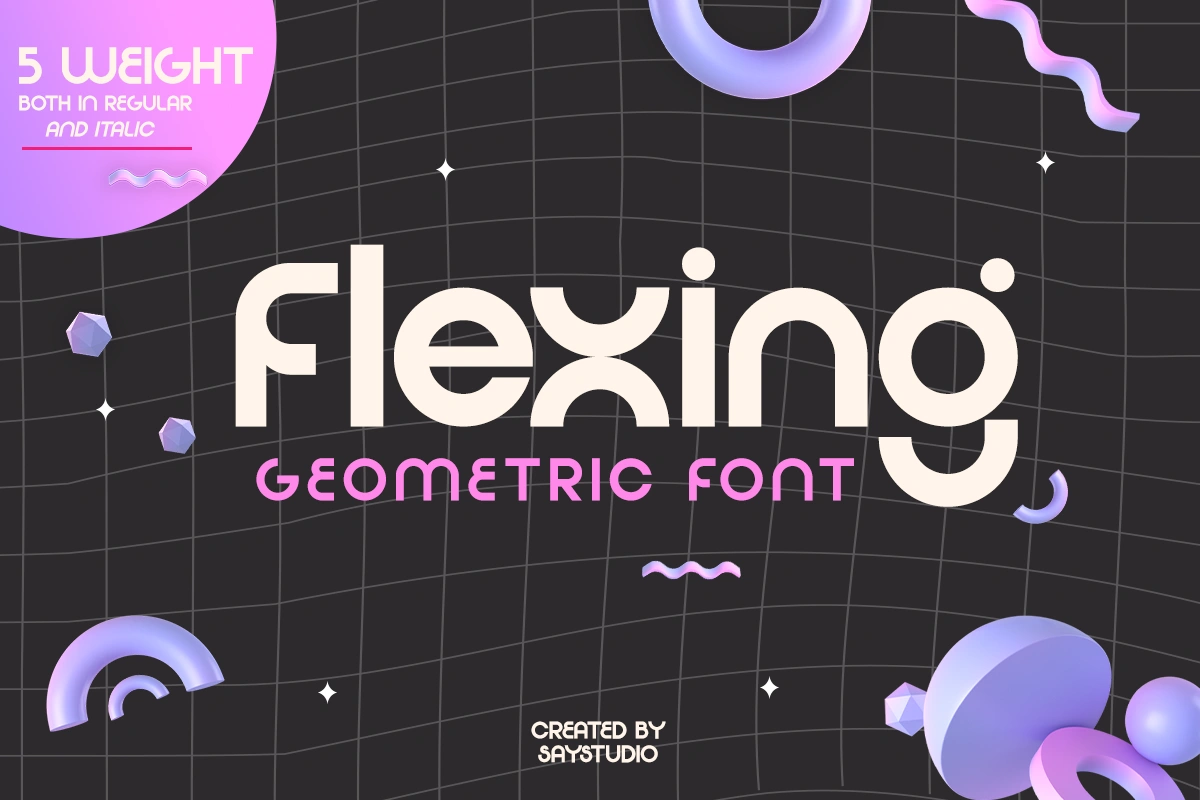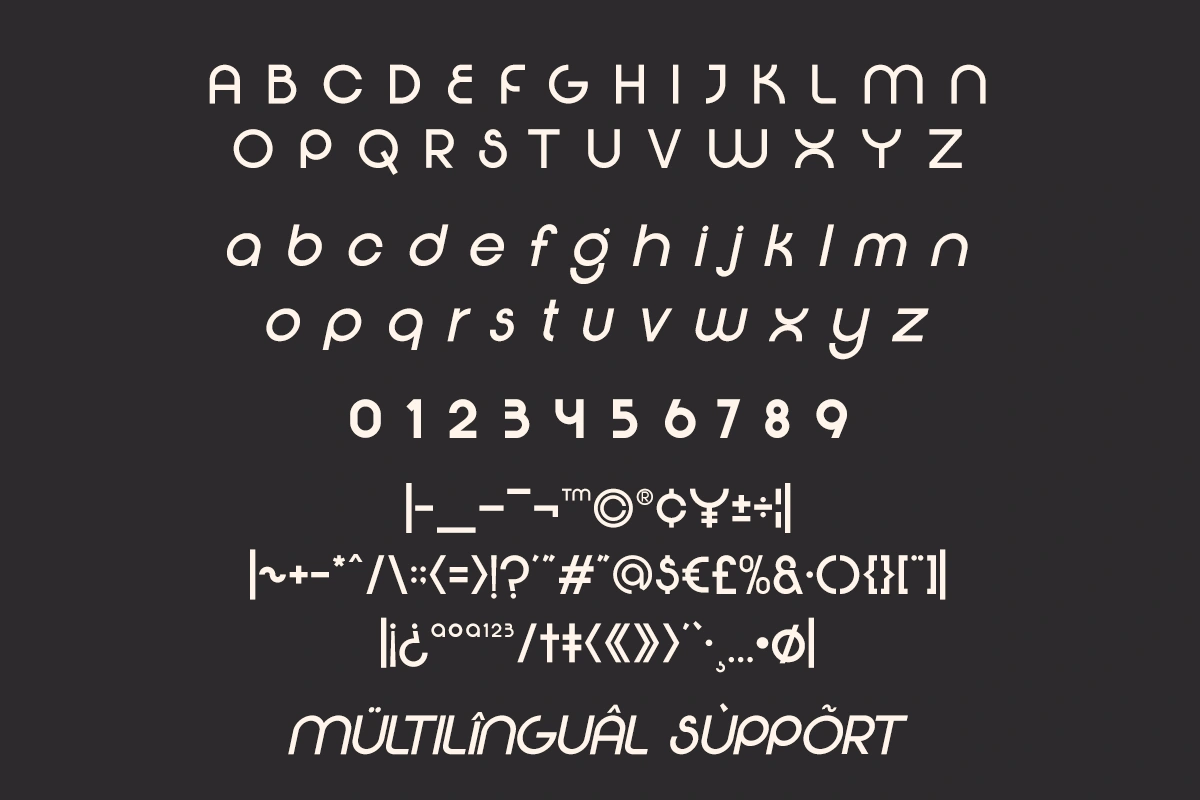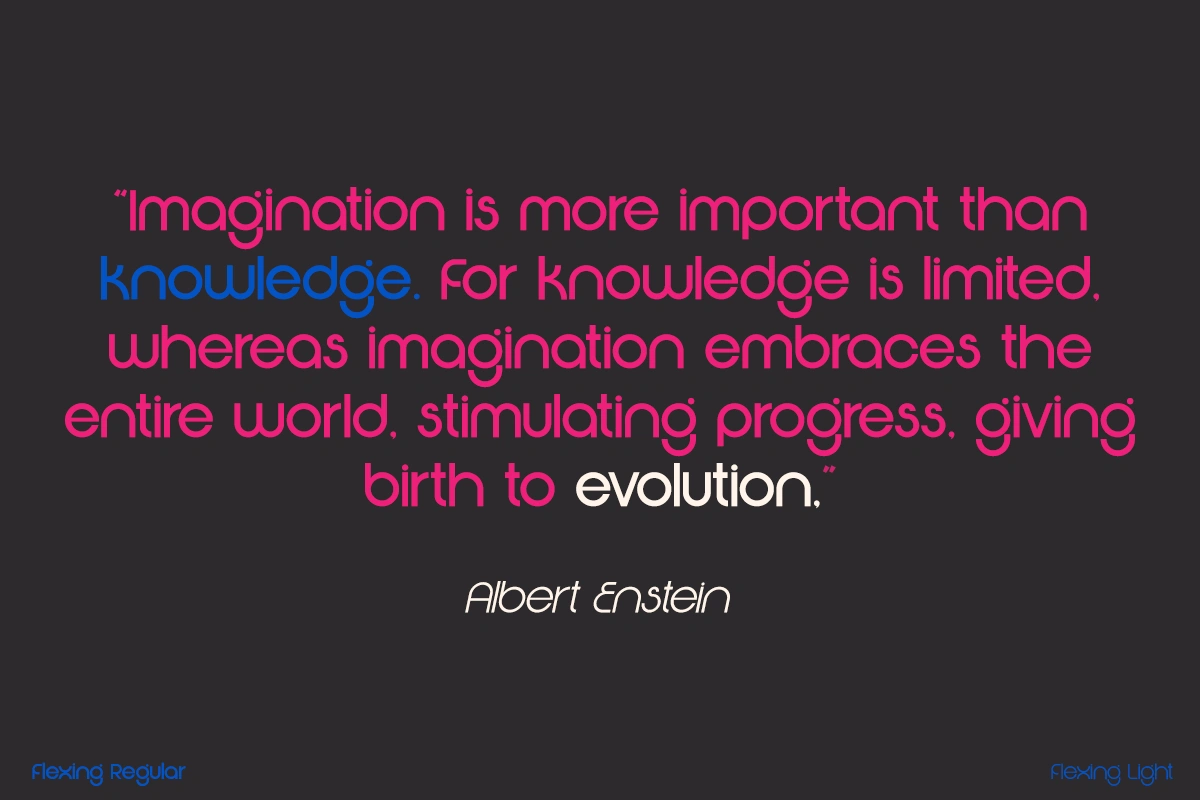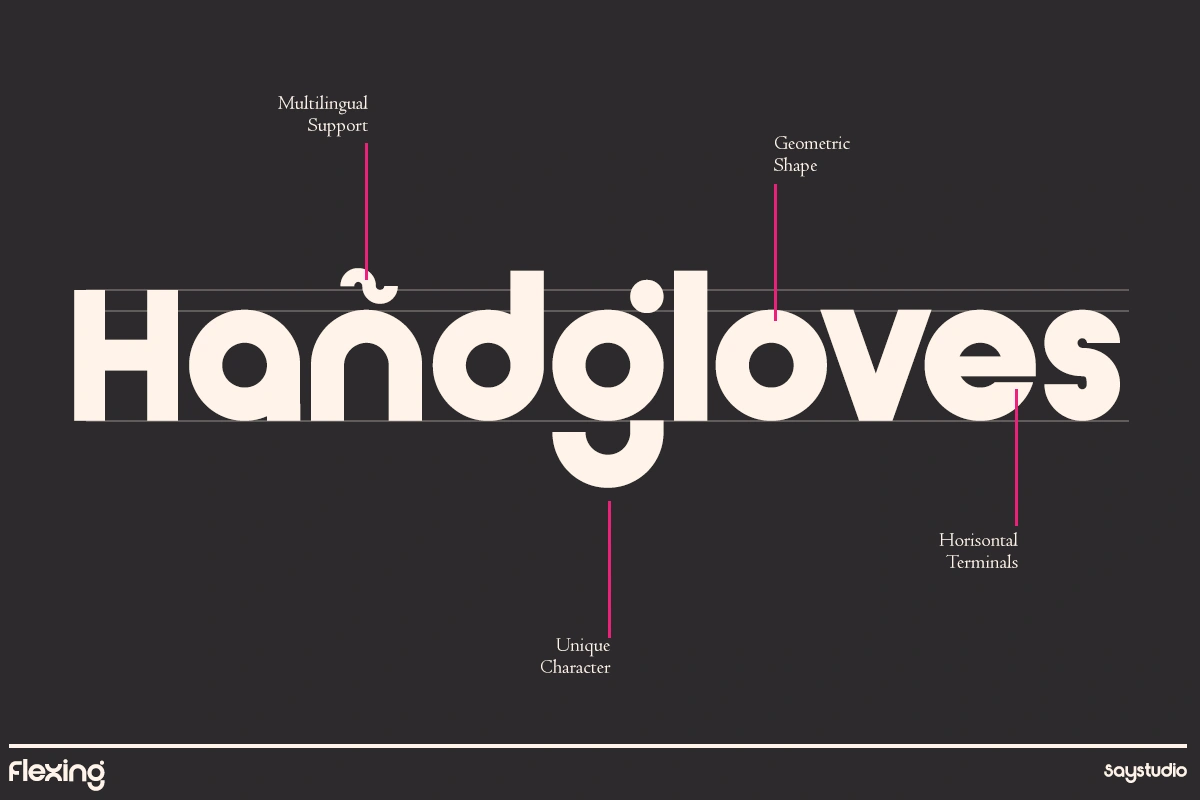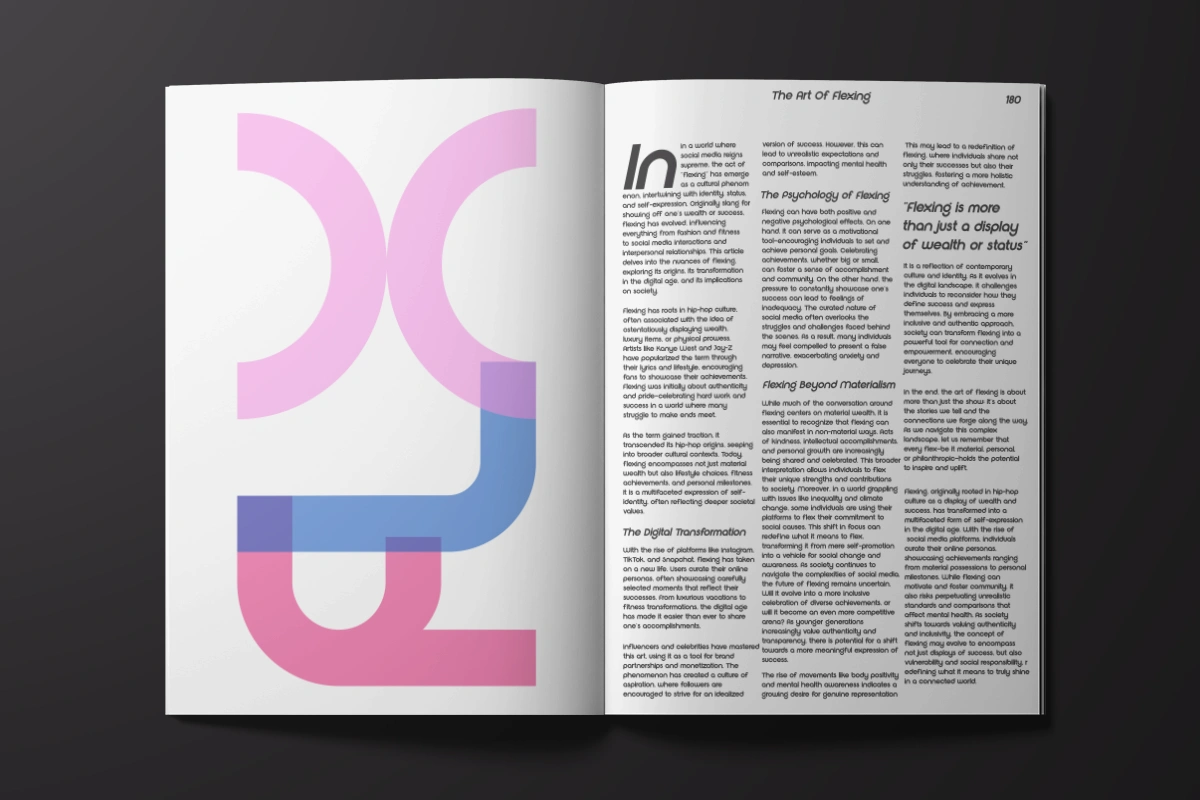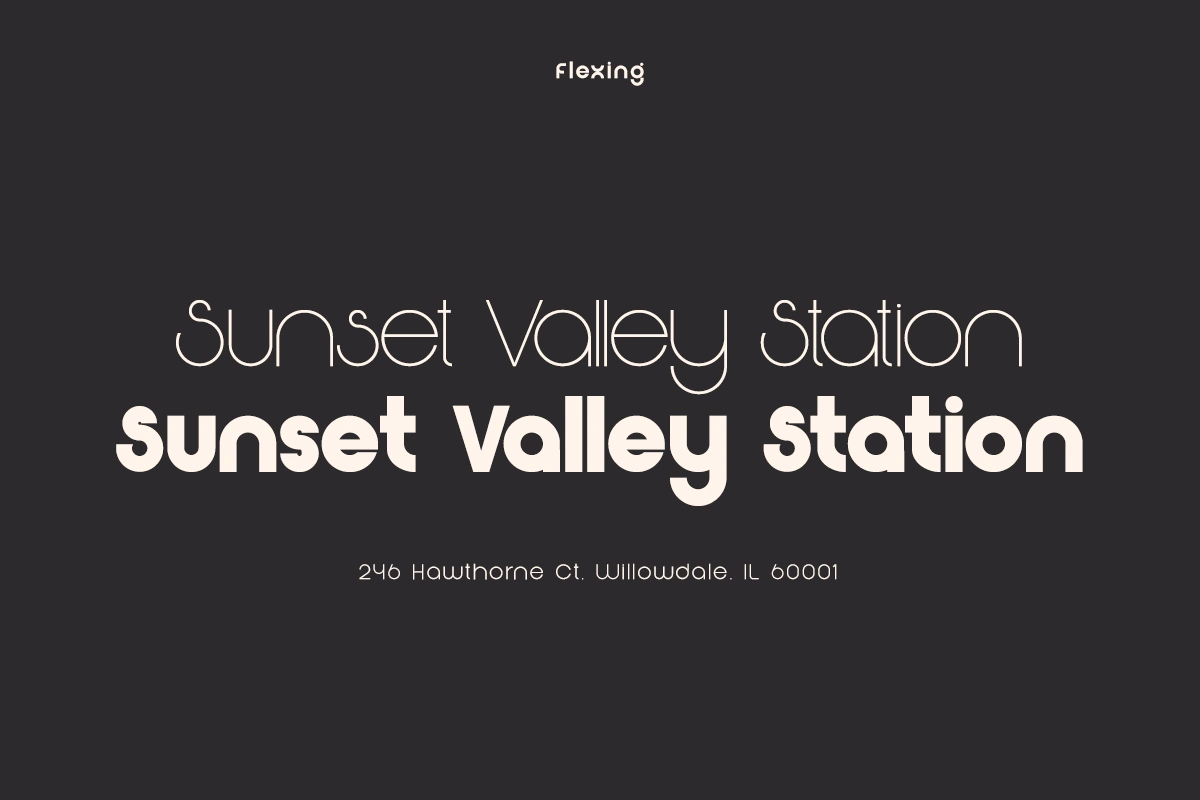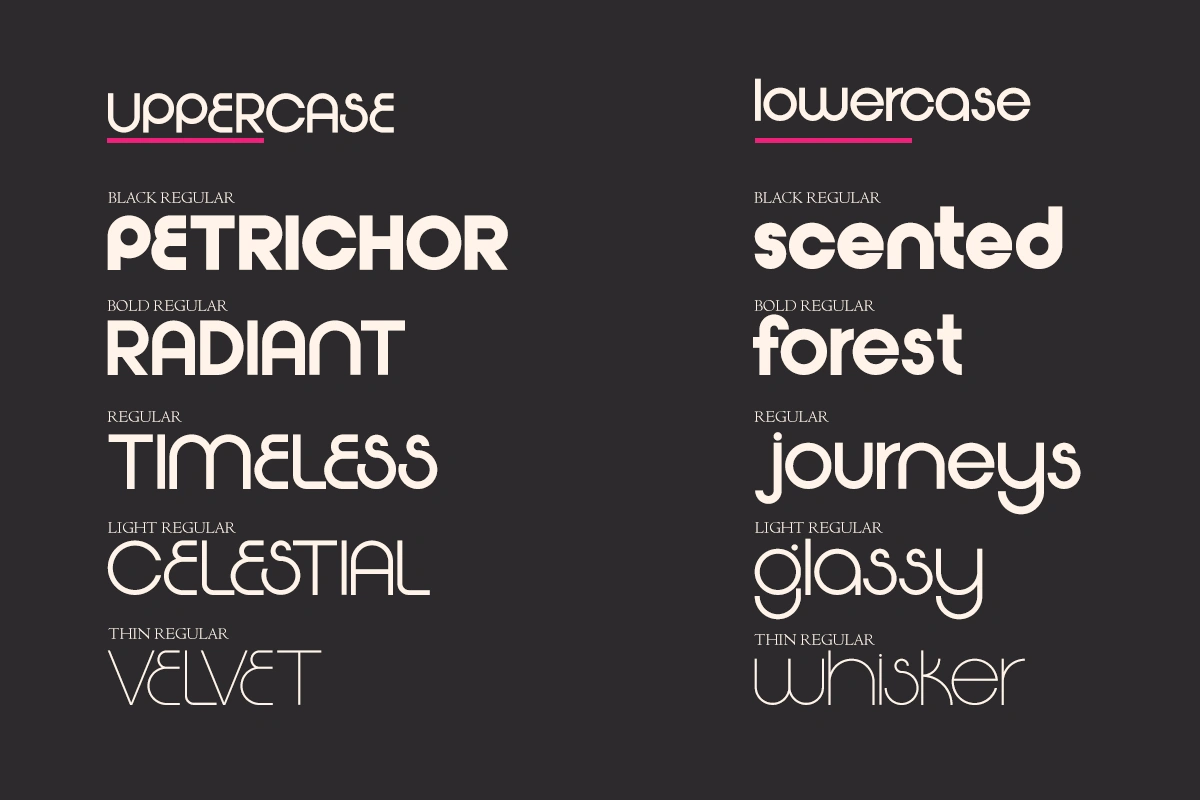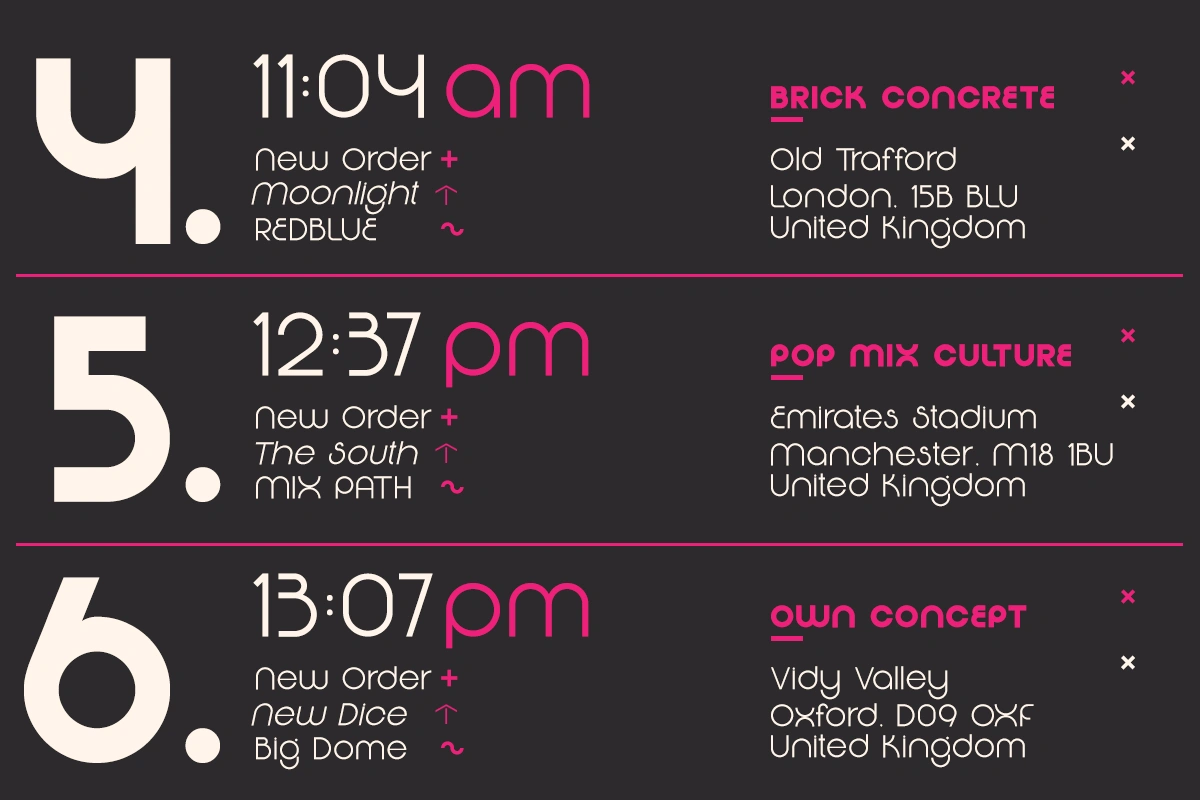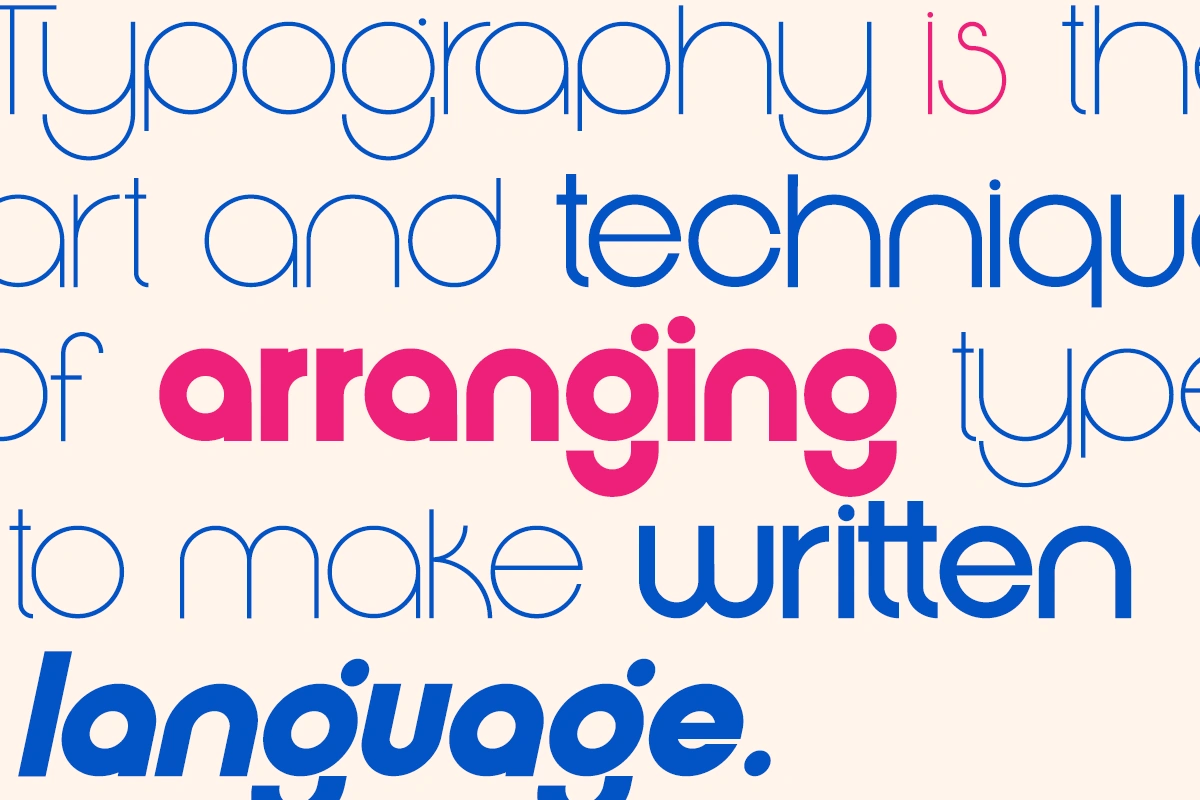
Flexing – Geometric Font
Flexing is a distinctive geometric sans serif family typeface that stands out with its unique characters. It available in 5 weights both in regular and italic. Striking the perfect balance between simplicity and sophistication, it offers a clean and modern aesthetic. Ideal for both text and display use, Flexing excels in branding, advertising, packaging, headlines, magazines, websites, logo designs, and beyond, making it a versatile choice for any project.